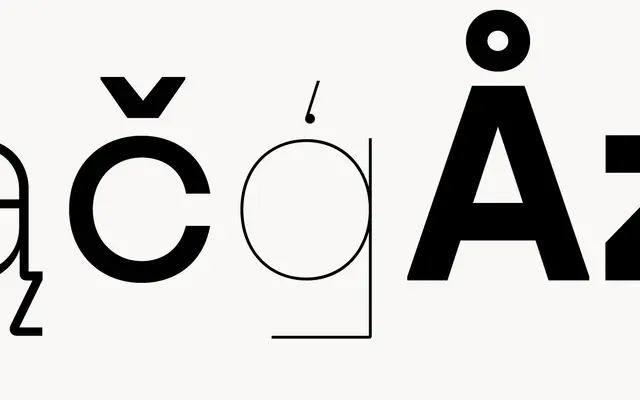
Swiza
atipo foundry · atipo foundry
A bracketed slab serif from atipo across seven weights with matching italics, suited to editorial and brand systems.
Swiza is a slab serif from atipo foundry, sitting in the bracketed Egyptian slab tradition rather than the harder geometric slabs. It runs across seven weights from Thin to Bold with matching italics, fourteen styles in total, which gives it real range for editorial body and display work. Suits long-read publications, brand systems wanting a confident voice, and pairings with a geometric sans like atipo's Silka or Strawford for a classic sans-and-slab combination.
A slab serif across seven weights from Thin to Bold with matching italics. Slabs are bracketed, leaning more Egyptian than geometric.